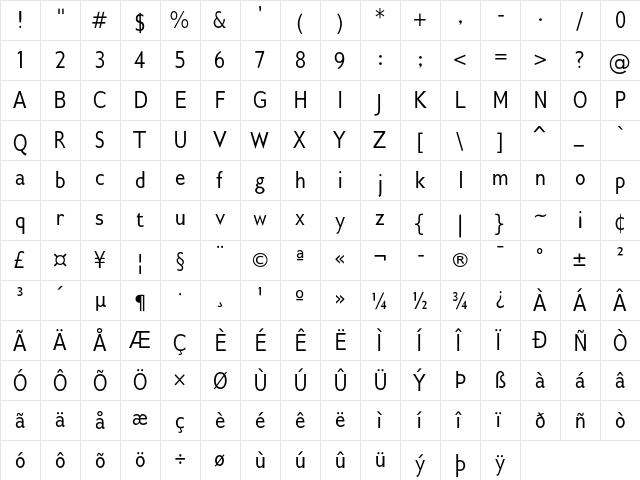
Gillius ADF No2 Cond Regular
| Foundry | Arkandis Digital Foundry. |
| Designer | Hirwen HARENDAL |
Design Context for Gillius ADF No2 Cond Typeface
Gillius ADF No2 Cond is a composed and adaptable typeface that performs quietly and consistently across a wide range of design contexts. The condensed width makes it efficient for tight spaces without sacrificing legibility.